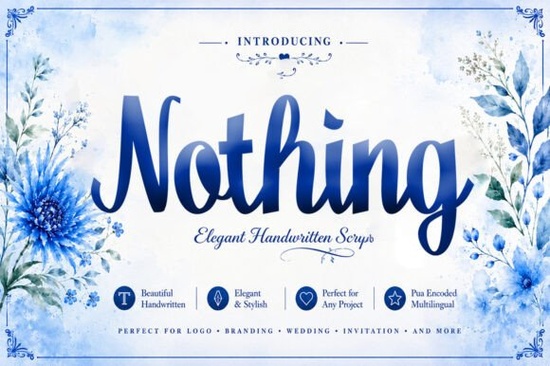
If you’re looking for a script font that feels hand‑painted yet polished, Nothing Font is worth a closer look. This stylish typeface combines fluid brush strokes with dynamic curves, making it a solid choice for logos, invitations, packaging, and social media graphics. It captures the look of real calligraphy but keeps a clean, modern edge so your designs feel artistic without being fussy.
What kind of projects work best with Nothing Font?
Because Nothing has a natural, expressive flow, it works especially well for branding and print materials where you want to add personality. Think about:
- Logos & wordmarks – especially for creative businesses, boutiques, or personal brands.
- Invitations & save‑the‑dates – the hand‑lettered vibe makes events feel more personal.
- Product packaging – from candles to skincare, a script like this suggests quality and care.
- Social media graphics – quotes, announcements, or promotional posts stand out with a lively script.
The font’s vibrant character also works nicely for greeting cards, menu headers, or any project where you want to draw attention without being too loud.
How does Nothing Font compare to other script fonts?
Script fonts range from neat cursive to wild brush lettering. Nothing sits in the middle it’s expressive but still readable. If you need something more playful, you might like the bouncy style in the Hamster script collection. For a sleeker, modern script, check out the Honesty typeface, which has a more structured feel. And if you want a very rough, hand‑drawn look, the Finytaels font offers a looser texture.
Nothing stands out because its strokes feel continuous like a real brush never left the paper. That’s what gives it that “artistic flair” mentioned in the description, while still being practical for everyday design work.
Where can I use a brush script font like Nothing?
Brush scripts are versatile, but they do best when you give them room to breathe. Use Nothing for:
- Headlines & short text – long paragraphs in a brush script can be hard to read.
- Layering with sans‑serif fonts – pair it with a clean sans to keep things balanced.
- Watermark or signature style – its hand‑lettered look works great as a personal touch on photos.
If you’re into print‑on‑demand, this font can add that “handmade” feeling to mugs, t‑shirts, or tote bags. Many sellers find that a script like this helps their products feel less generic.
What should I pair with Nothing Font?
Because Nothing has a lot of movement, it pairs best with simple, neutral fonts. A geometric sans‑serif or a thin serif will keep the overall design from feeling too busy. For example, you could use Nothing for the main headline and a minimalist sans like Montserrat or Lato for body text. This contrast highlights the script without overwhelming the viewer.
If you’re building a brand kit, try combining Nothing with a soft neutral palette cream, blush, or charcoal. The font’s natural curves will look elegant against solid backgrounds.
Quick checklist before using Nothing Font in your next project
- Test readability – put the font at different sizes to see how it behaves on screen and in print.
- Adjust kerning – some script fonts need manual spacing tweaks, especially in logo work.
- Pair it simply – avoid another script nearby; stick to one display script per design.
- Optimize for web – if you’re using it on a website, consider using it only for headings to maintain load speed.